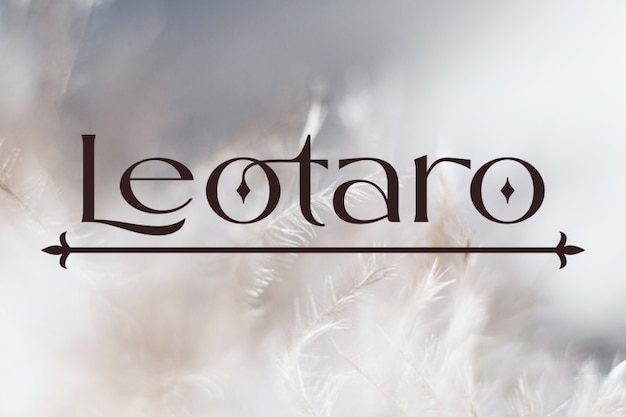
Leotaro
Leotaro Font
Leotaro is a font that gracefully bridges the gap between medieval and modern design, offering an aesthetic that's both elegant and contemporary. Its characters capture the essence of a bygone era with a modern twist, exuding sophistication and artistic charm that adds a touch of timeless refinement to your text. Whether you're working on projects that require the allure of medieval aesthetics, elegant branding, or any creative endeavor that demands a touch of classic and modern style, Leotaro effortlessly infuses your work with a unique and stylish quality.